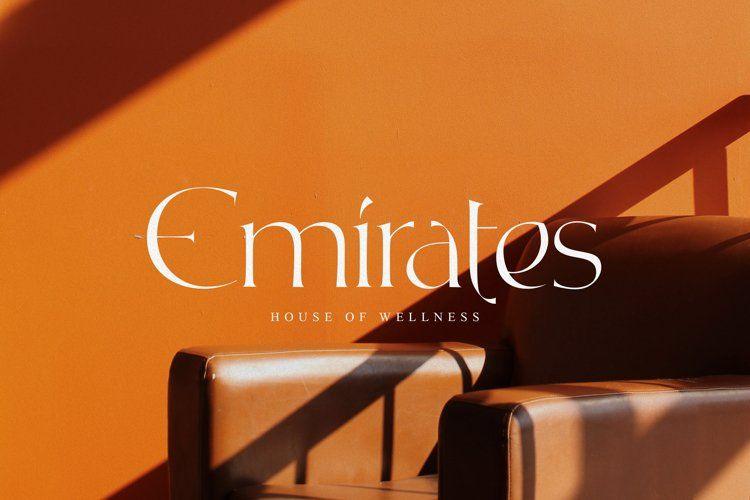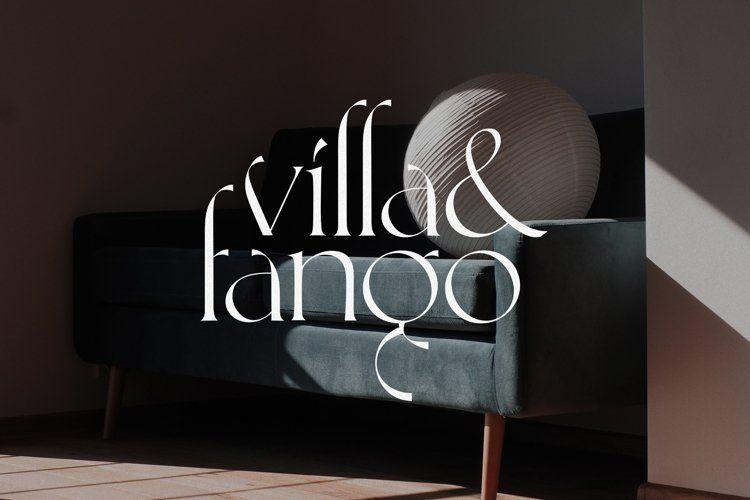
- Font Name: Elegant Stylish English Font Pack
- Font Style: Sophisticated / Artistic / Modern & Graceful
- Application Scenarios: High-end brand logo design, luxury brand visual promotion, boutique store signage, elegant poster creation, artistic brand content design
- High-Aesthetic Visual Appeal: Features delicate strokes and graceful letter structures, infusing designs with an elegant and refined atmosphere, instantly elevating visual hierarchy.
- Unique Artistic Style: Blends modern design elements with classic typography, each font carrying unique decorative details to meet diverse creative expression needs.
- Wide Applicability: Perfect for luxury brand building, artistic content creation, and high-end visual projects, adding a touch of sophistication to every design.